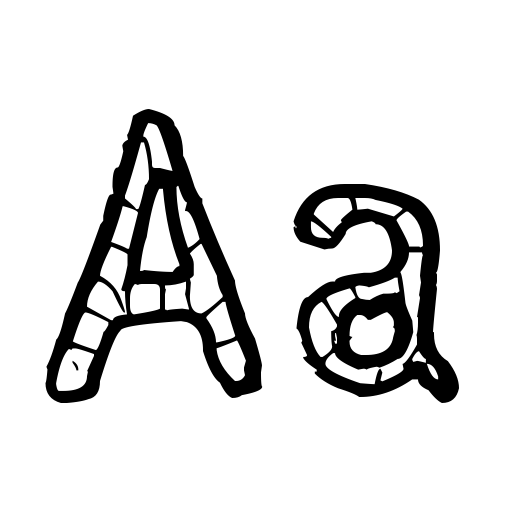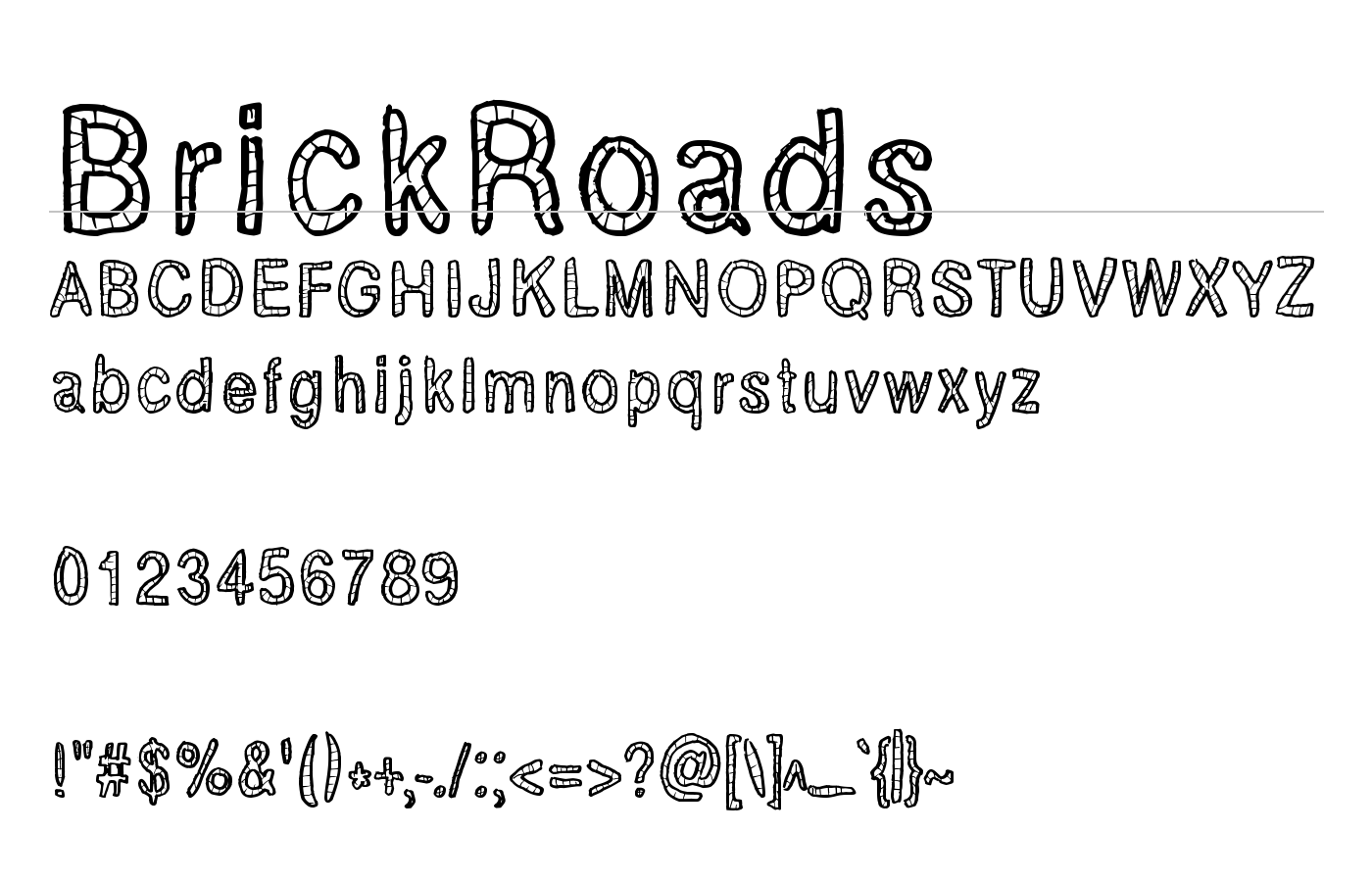
BrickRoads is a quirky, hand-drawn sans serif font that features playful, uneven strokes resembling cracked bricks, giving it a distinctive textured look. Its irregular letter shapes and light weight create a casual, artistic vibe perfect for creative projects, children's materials, or branding that seeks a fun, approachable personality. This font works well for headlines, logos, and displays where a unique, handcrafted feel is desired.
BrickRoads Font
About BrickRoads Font
| Font family | BrickRoads Font |
| Designer | Max Infeld - Xerographer Fonts |